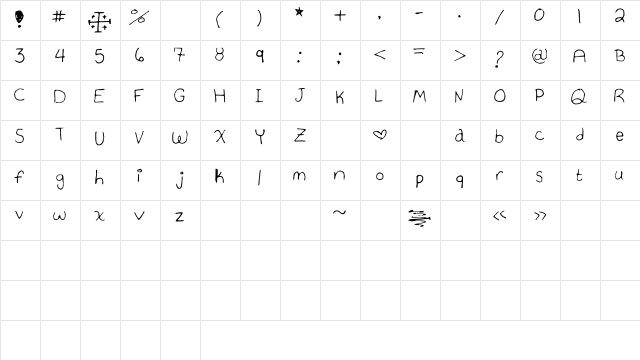
Hannah_Font_Print Medium
Design Context for Hannah_Font_Print Typeface
Hannah_Font_Print takes a measured approach to typography — its balanced proportions and neutral character make it a reliable workhorse for both digital and print work.